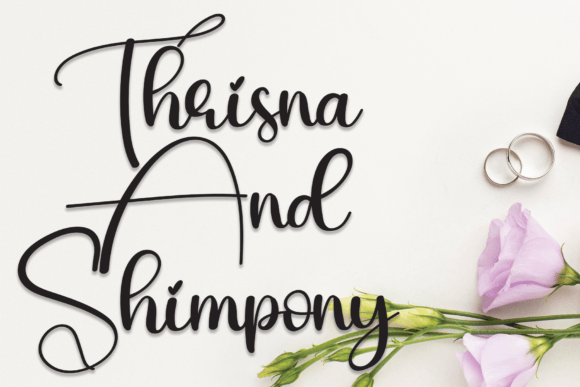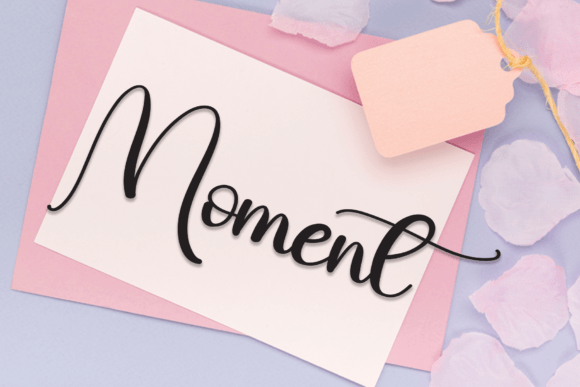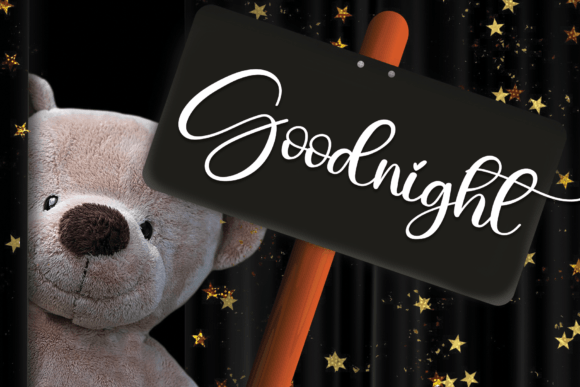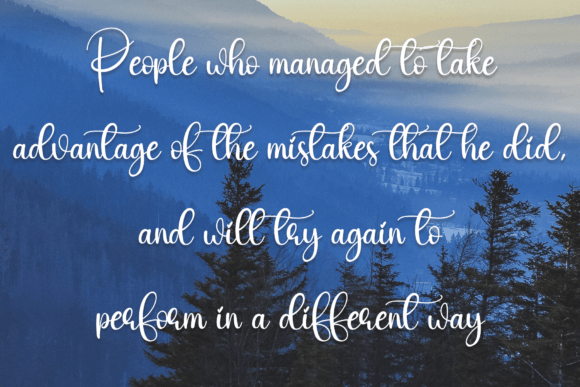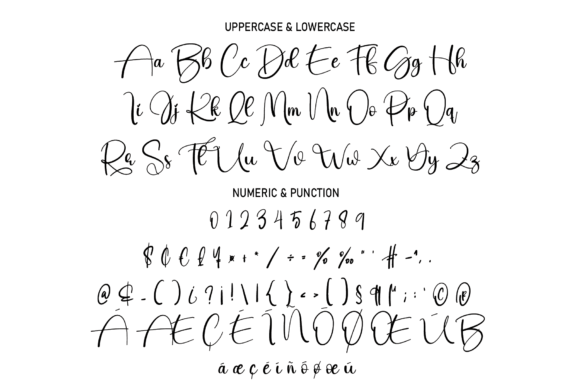
The Perfect Touch of Whimsy: Introducing Angel Font
Have you ever stumbled upon a beautiful handwritten note or a heartfelt letter that made your heart skip a beat? It’s those personal touches that make a lasting impression, don’t you think? As designers, we’re always on the lookout for ways to add a little extra magic to our projects.
Enter Angel Font, a stunning handwritten script that’s sure to captivate your audience. With its elegant curves and flowing lines, this versatile font is perfect for everything from greeting cards to headlines. Whether you’re looking to add a touch of romance or whimsy to your next project, Angel Font is guaranteed to deliver.
As a designer, you know the value of having the right tools at your disposal. Angel Font is a valuable addition to any toolkit, offering endless possibilities for creative expression. Its romantic feel is sure to leave a lasting impression on your clients and audience alike.
Angel Font Key Features
- Font Family: Angel Font is a beautiful, elegant script font designed for various applications, including logos, branding, and typography.
- Unique Characteristics: Angel Font features a unique, hand-drawn design with subtle flair and elegance, making it perfect for adding a touch of sophistication to your designs.
- Character Set: Angel Font includes a comprehensive character set, including uppercase and lowercase letters, numbers, and punctuation marks, making it suitable for a wide range of applications.
Angel Font Review
Overall, I was quite underwhelmed by the Angel Font. While it has some redeeming qualities, it falls short in several areas. Here’s a breakdown of what works well and what doesn’t:
- Unique aesthetic: The Angel Font has a distinct, whimsical feel that can be quite eye-catching.
- Legibility: Despite its ornate design, the font is surprisingly readable, especially in larger sizes.
- Customization options: The font comes with a range of weights and styles, making it suitable for various design applications.
- Lack of versatility: The Angel Font is best suited for titles, headings, or other display text, as its ornate design can be overwhelming for body text.
- Difficulty in smaller sizes: While the font is legible in larger sizes, it becomes difficult to read in smaller sizes due to its intricate design.
- Overuse potential: The Angel Font’s unique design can quickly become cliché if overused, so it’s essential to use it judiciously.
Overall, the Angel Font is a decent choice for designers looking to add some flair to their titles or headings. However, its limitations make it less suitable for body text or other design applications where readability is crucial.
Tips for Getting the Most Out of Angel Font
For a cohesive look, use Angel Font consistently throughout your design. Experiment with different font sizes and styles to add visual interest. Use Angel Font in combination with other fonts to create a unique and eye-catching design.
Angel Font is perfect for creative projects such as invitations, posters, and social media graphics. It’s also great for adding a touch of elegance to business presentations and documents. Use Angel Font to create a whimsical and romantic atmosphere in your designs.